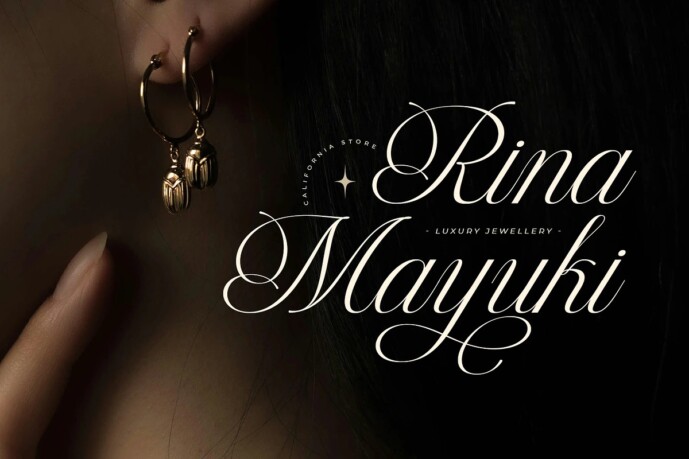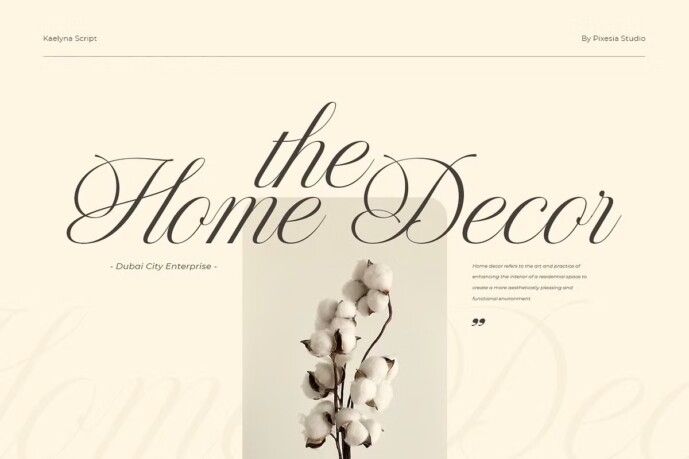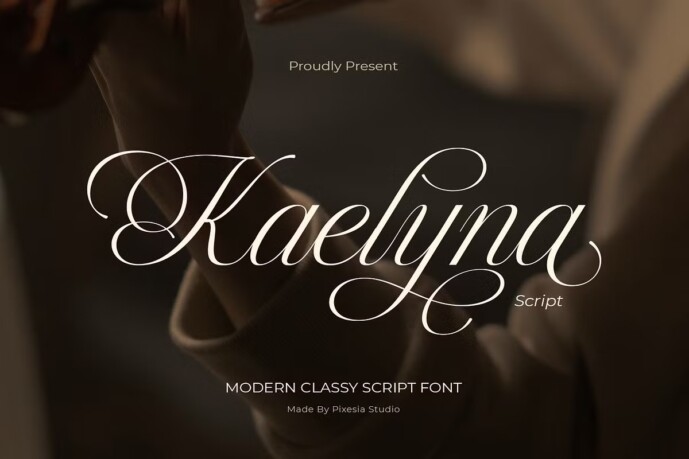
Kaelyna Font
Kaelyna Font is a modern and elegant calligraphy font. With its flowing cursive style, this script adds a minimalist, luxurious and classy feel to any design project.
Kaelyna Script is perfectly suited for branding, logotypes, wedding invitations, romantic quotes, labels, social media posts, advertisements, product packaging, product designs, apparel, label, photography, watermark, invitation, stationery and any projects seeking premium quality and luxury feel.